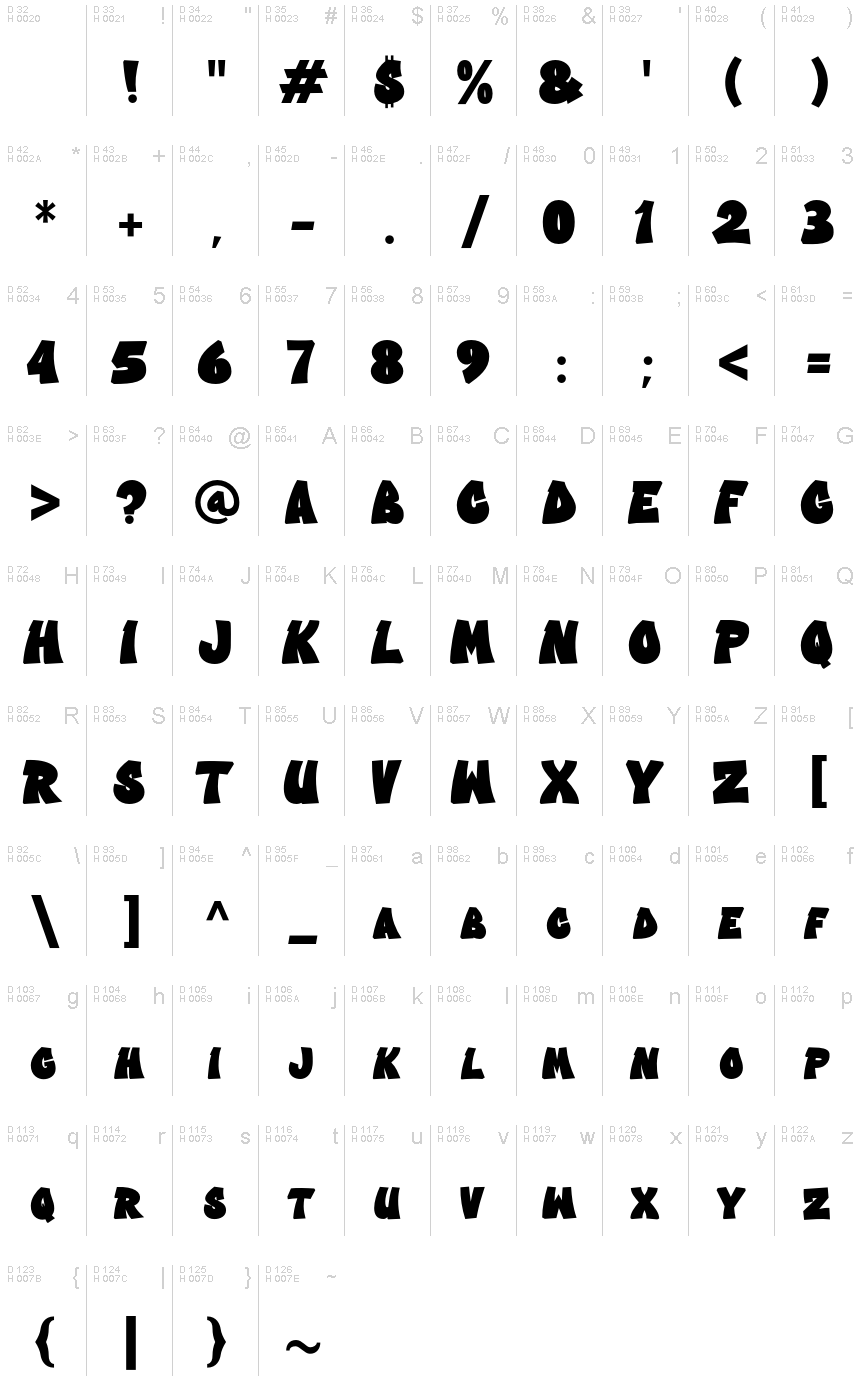
Graffiti Brandesh Regular
Graffiti Brandesh, a bold and captivating font crafted by Fitrah Type, exudes an unmistakable air of urban energy and raw expression. Its dynamic, hand-painted strokes and uneven edges evoke the vibrant essence of graffiti, making it a striking choice for projects seeking a bold, street-inspired aesthetic. This font's unapologetic presence commands attention, seamlessly blending the rawness of graffiti with a touch of refined elegance.
Graffiti Brandesh's versatility extends across a wide range of design applications, from eye-catching event posters and album covers to impactful branding and packaging. Its bold, expressive character lends itself particularly well to projects that aim to convey a sense of edgy, rebellious spirit, making it an ideal selection for fashion, music, and youth-oriented industries. Whether you're crafting a striking logo, designing a captivating social media campaign, or seeking to infuse your project with a gritty, urban vibe, Graffiti Brandesh is a font that will undoubtedly make a lasting impression.